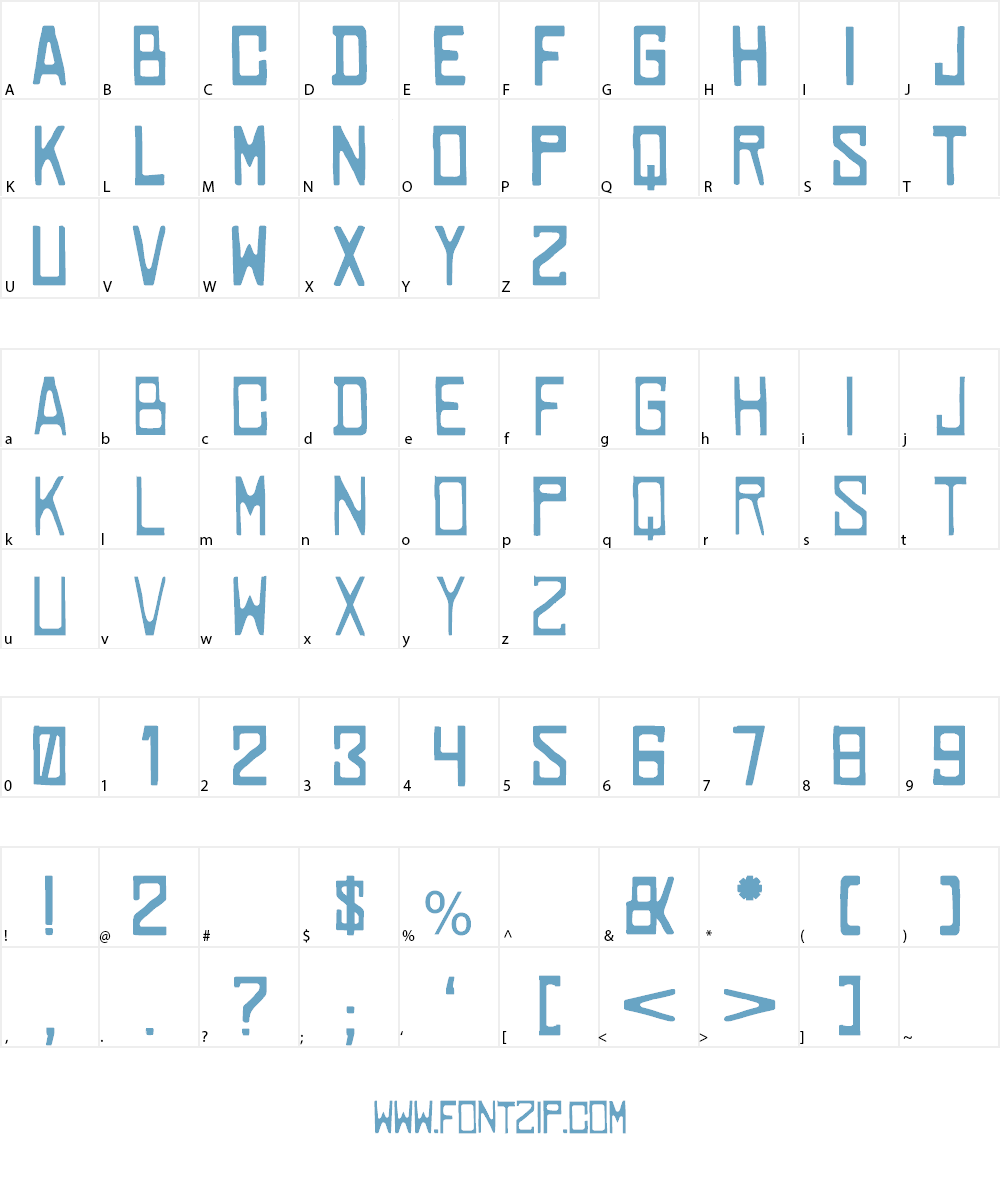
I have always loved this Eastman and Laird comic book franchise I wanted to create a rough edged font based on the latest 2012 nickelodeon TV series titles the totally bodacious first release did not included numbers... The latest version 2.013 has now been released this includes the missing numbers plus extra characters..
COWABUNGA DUDES !!!!